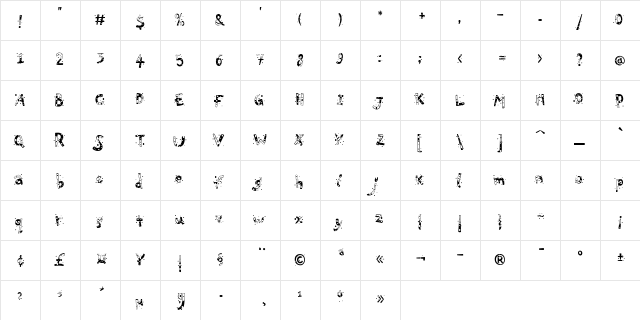
PF Playskool Pro Confetti Regular
| Foundry | Parachute? Worldwide |
| Designer | Alexandros Papalexis |
Design Context for PF Playskool Pro Confetti Typeface
PF Playskool Pro Confetti is a composed and adaptable typeface that performs quietly and consistently across a wide range of design contexts.